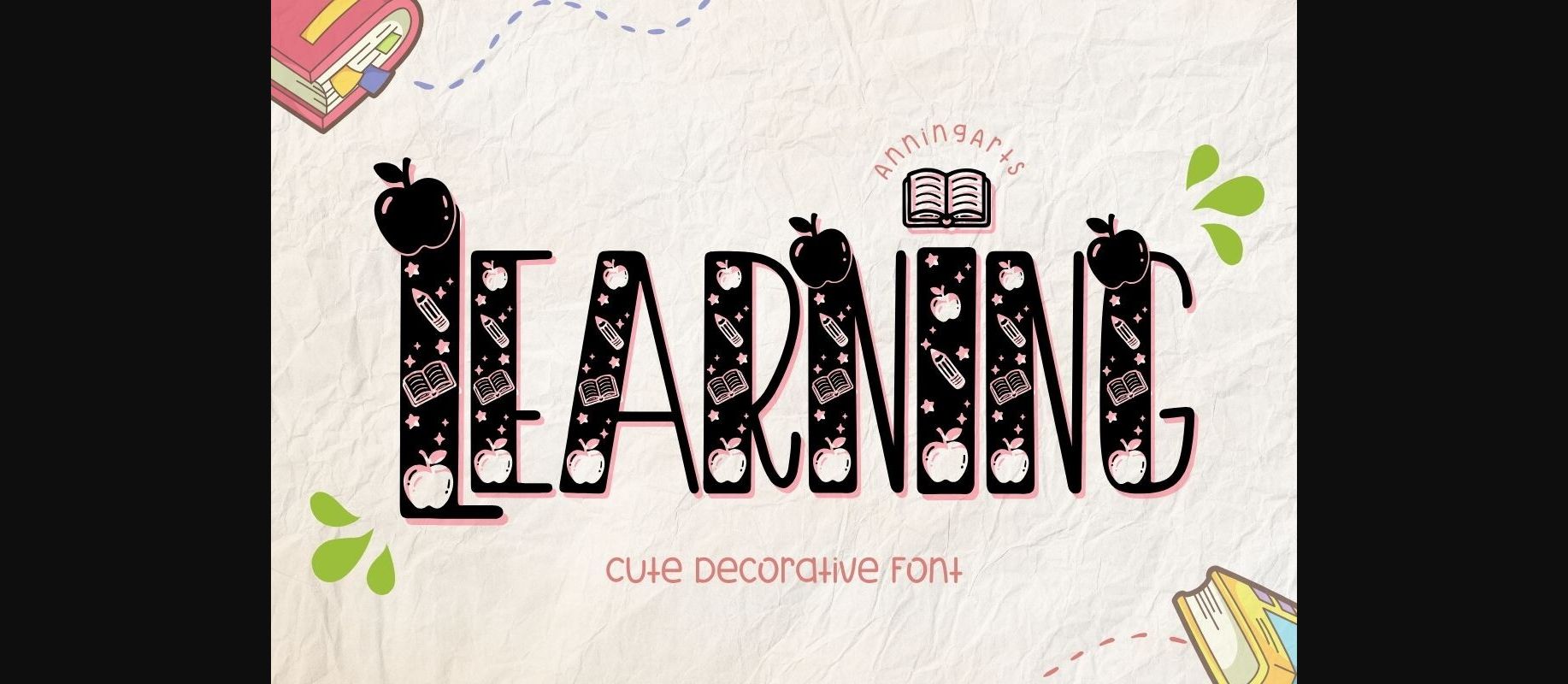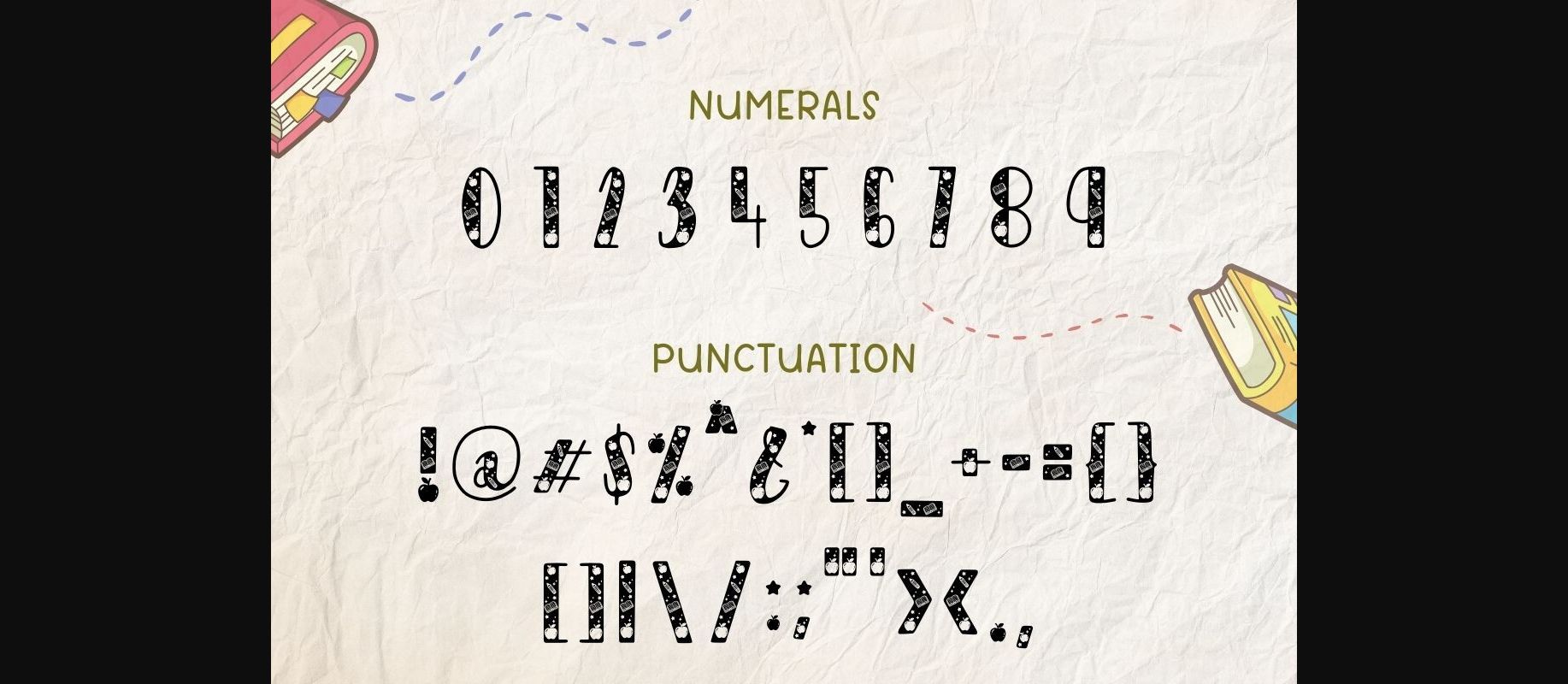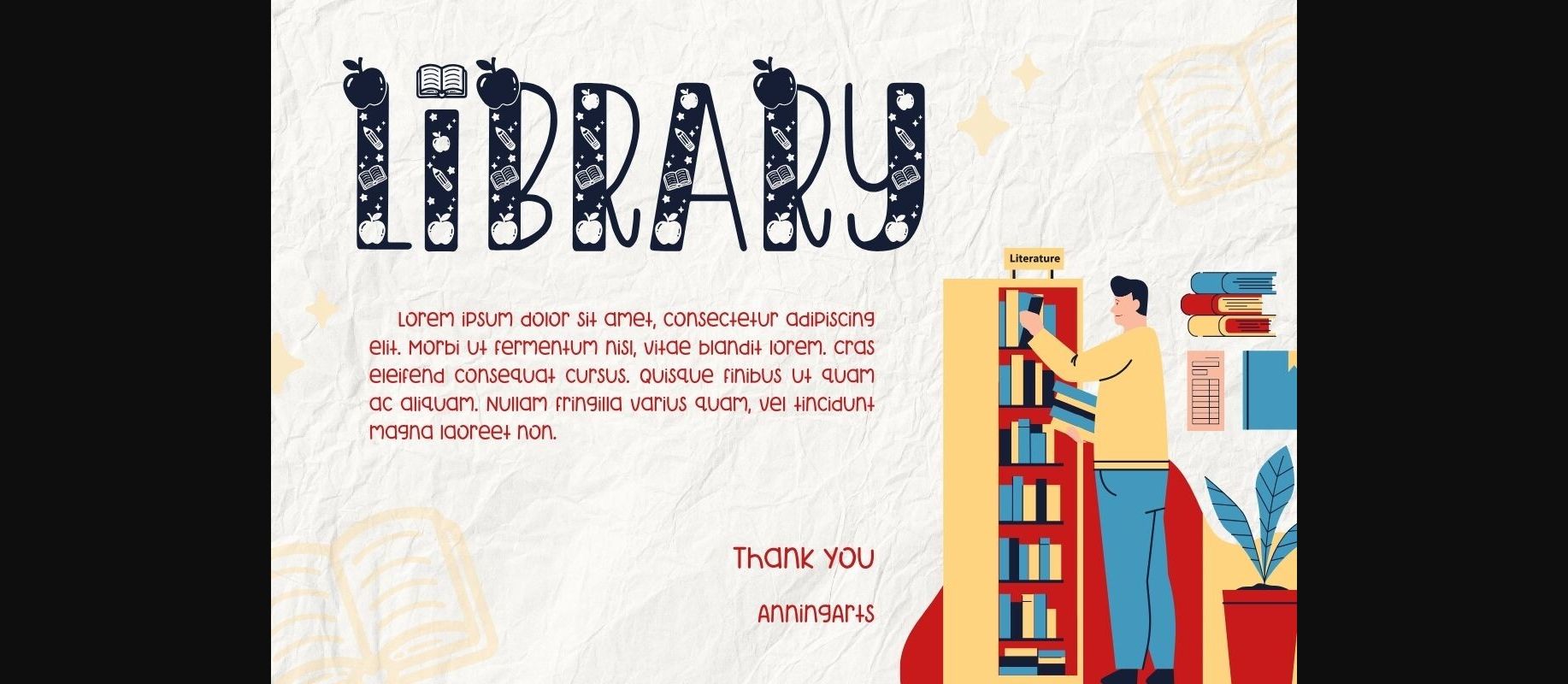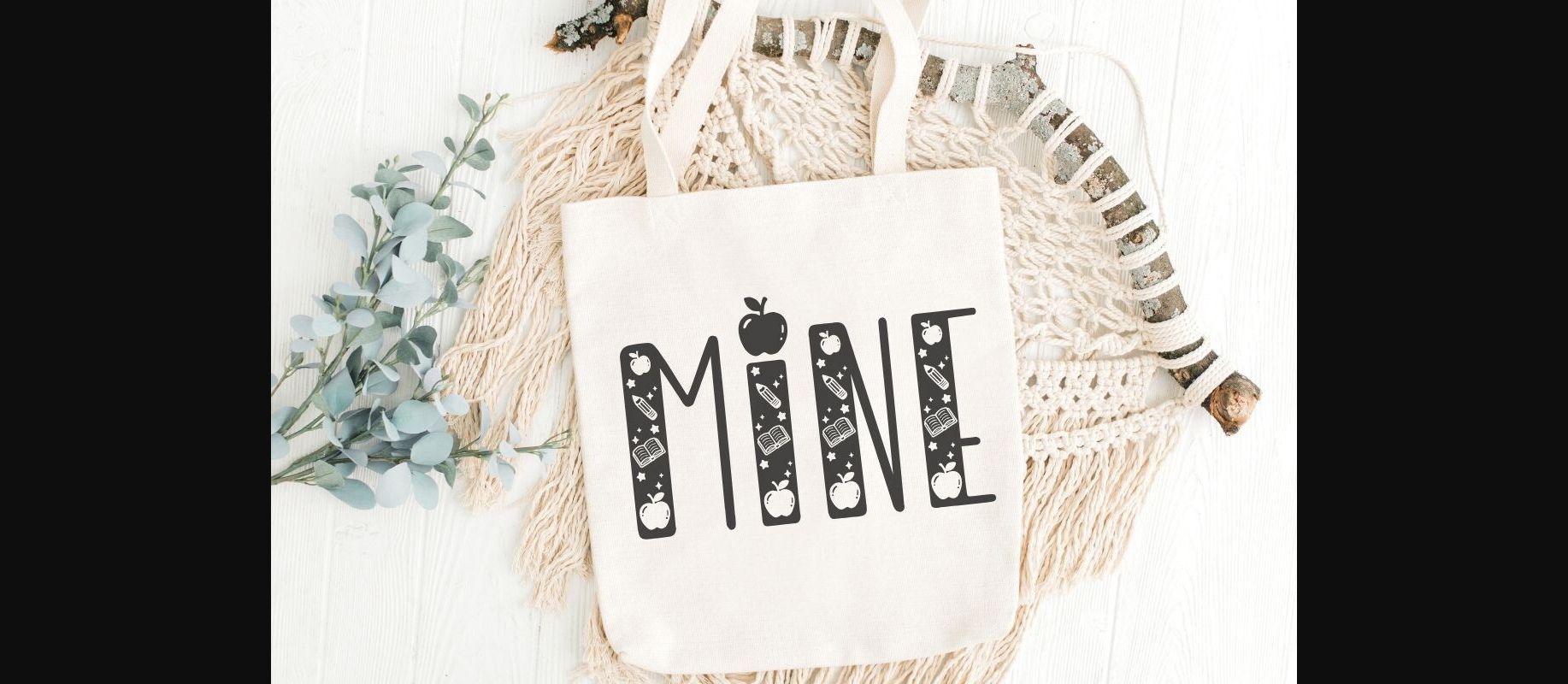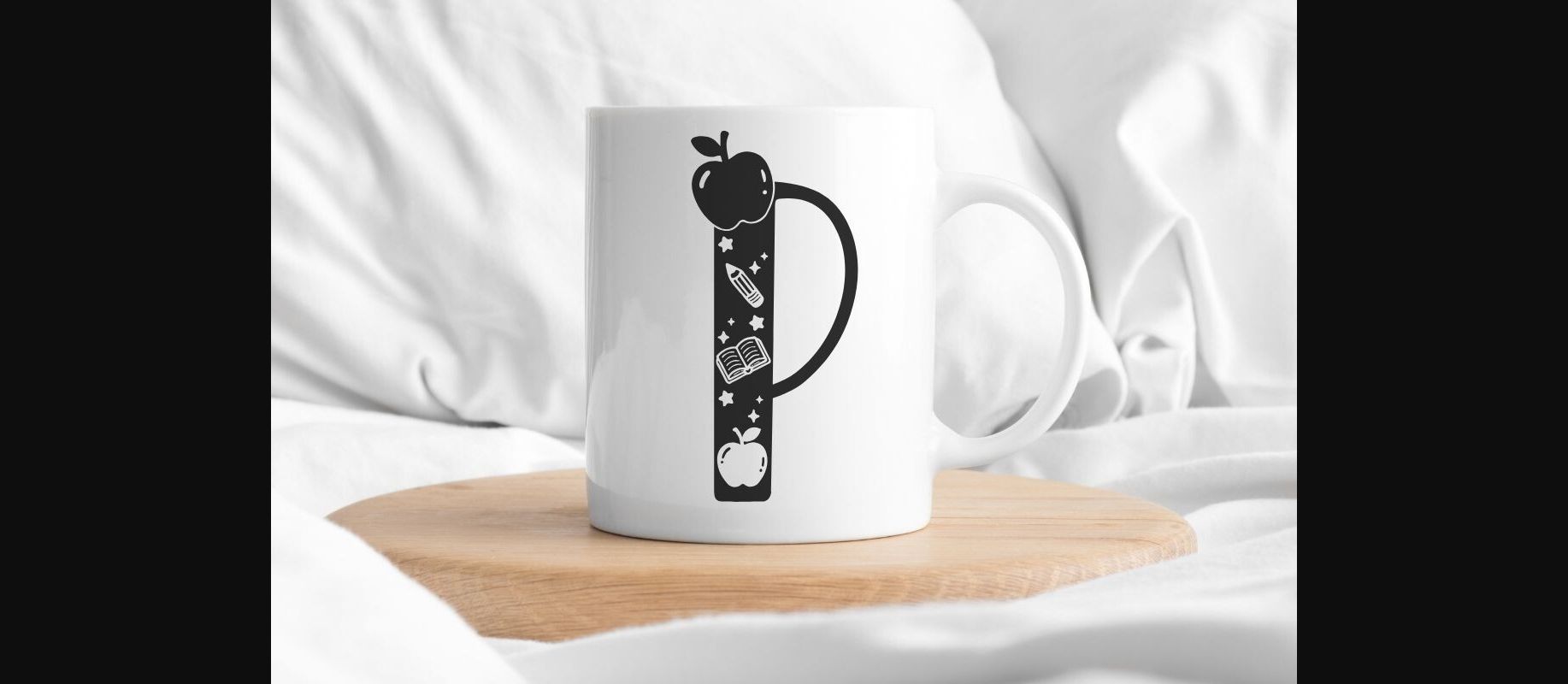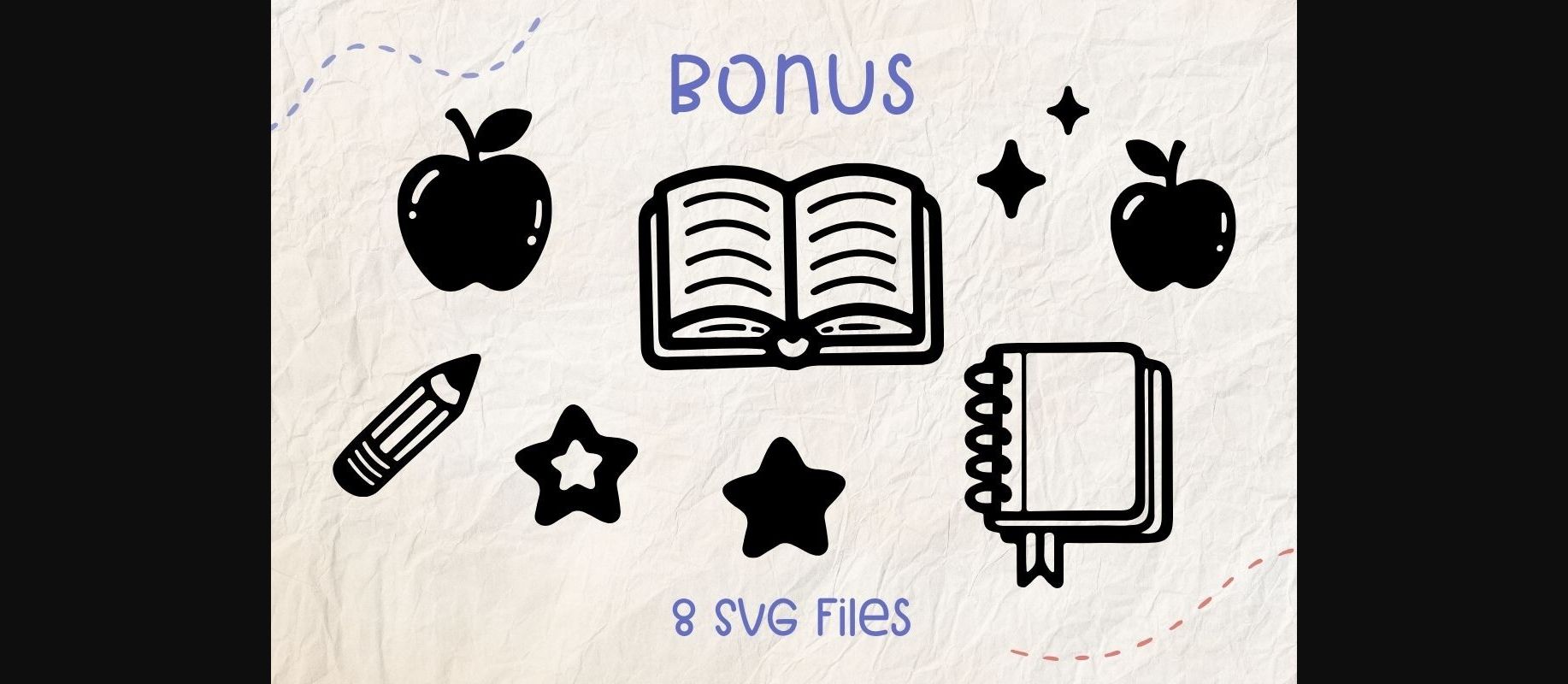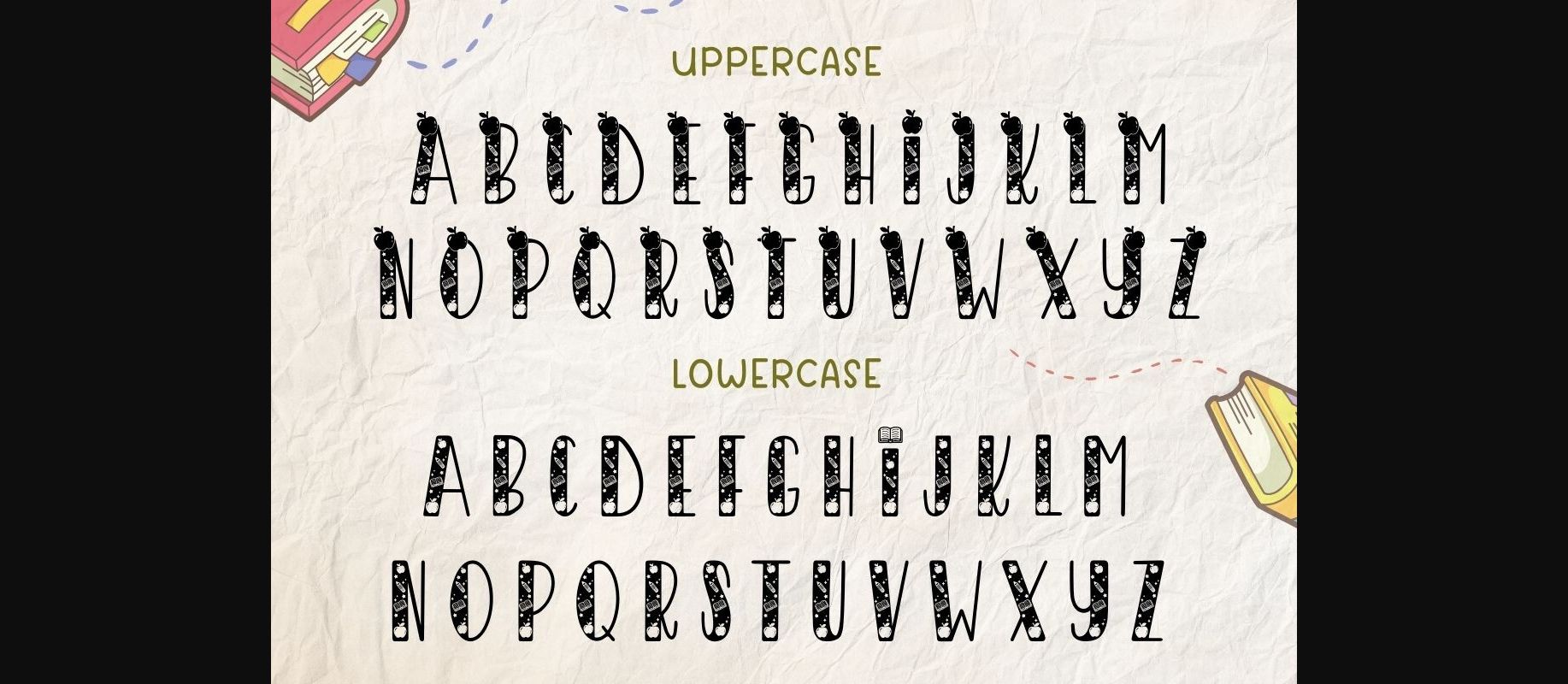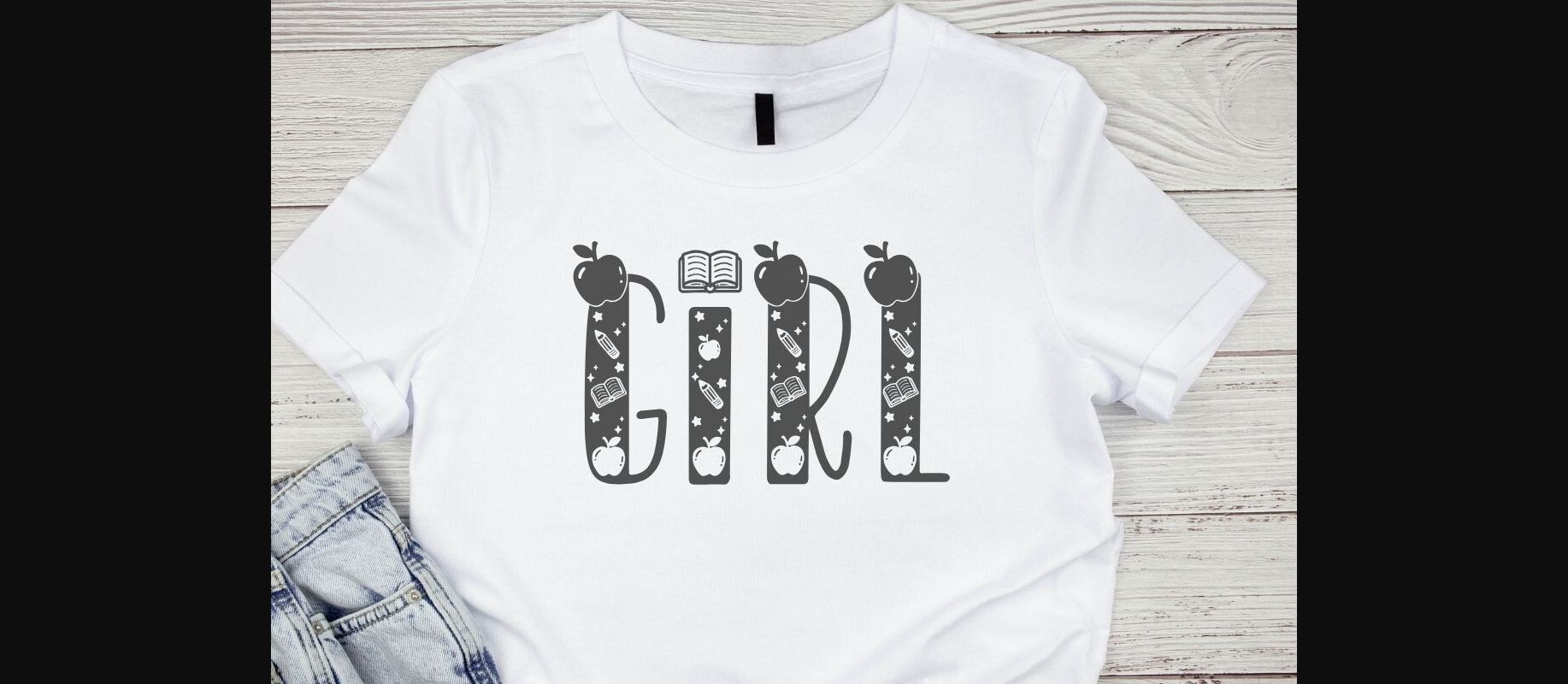
Learning Font
About Learning Font
Learning is a cute, decorative font decorated with apples, notebooks, and pencils that represents education with a back-to-school theme. The quirky design adds a fun touch to any project. Perfect for creating a wide variety of new designs to match products such as banners, content, mugs, cards, shirts, stationery, social media posts, and more!